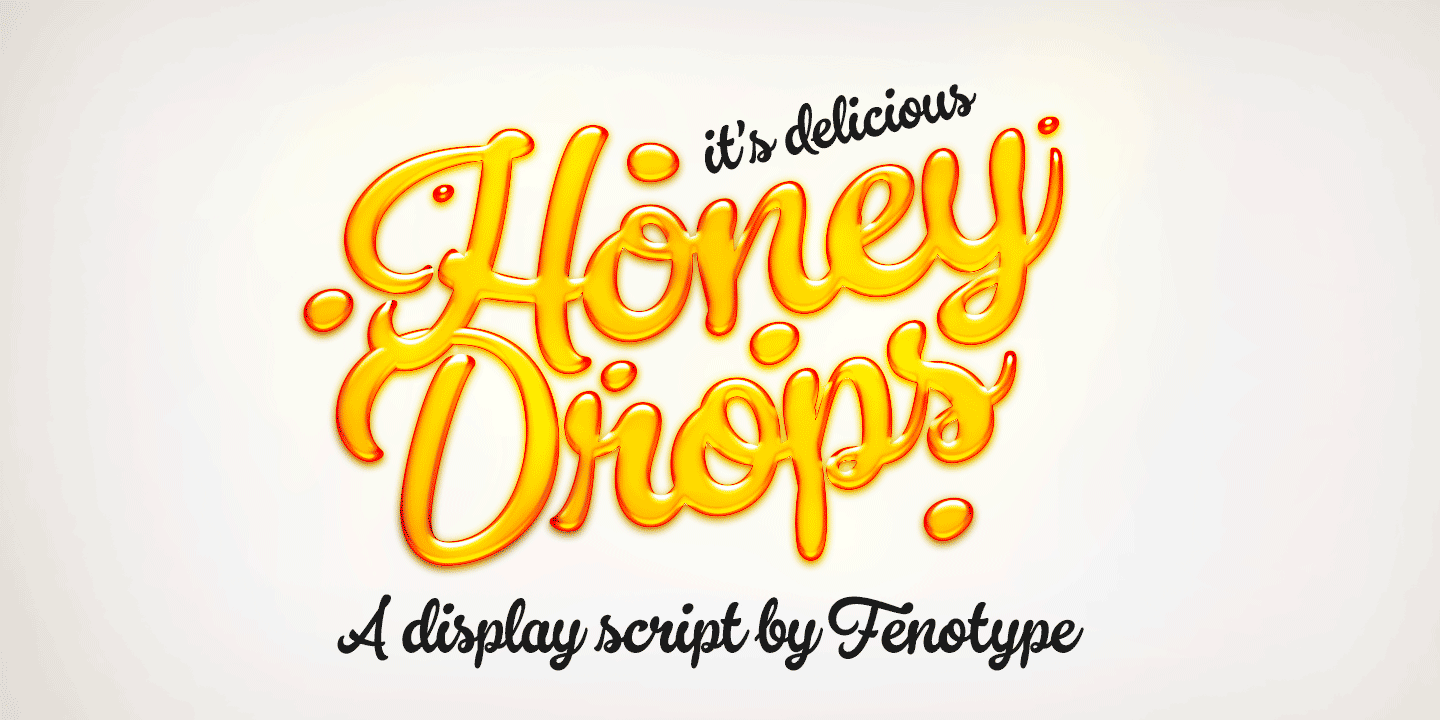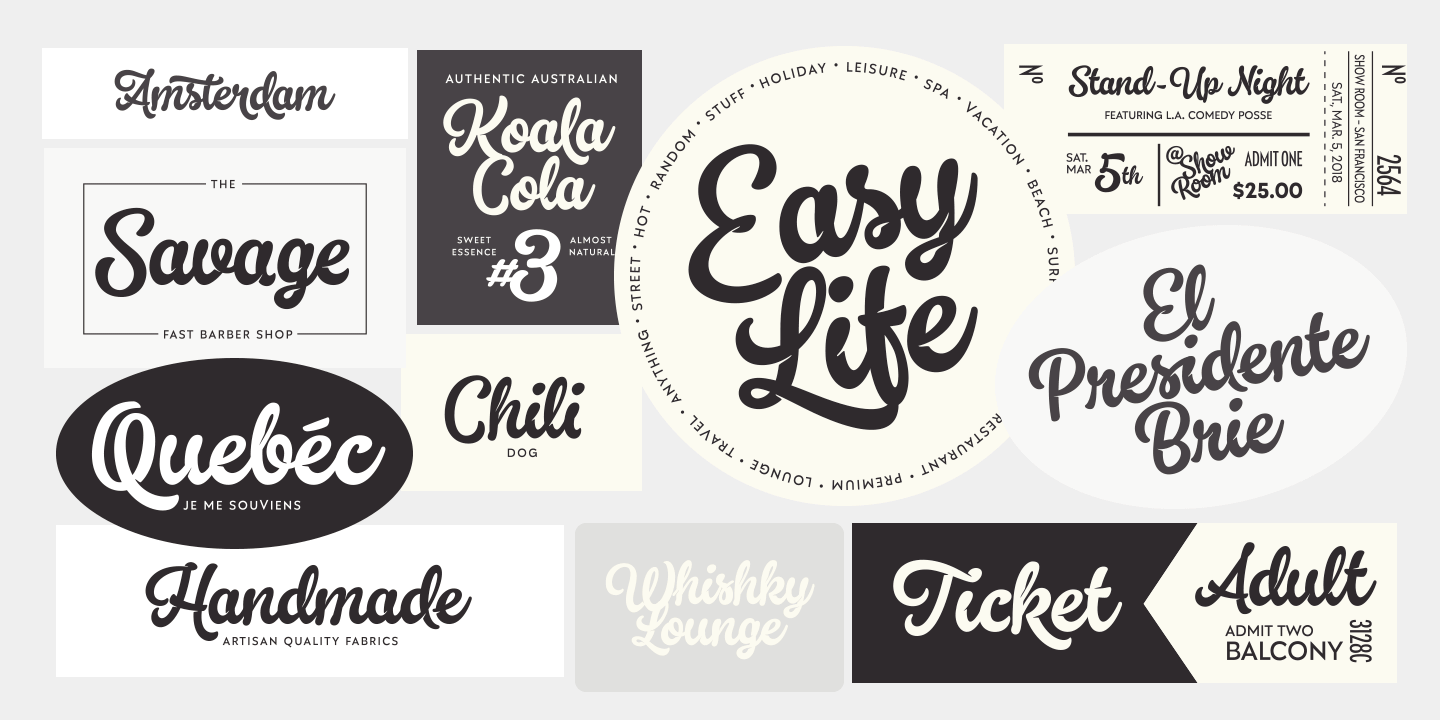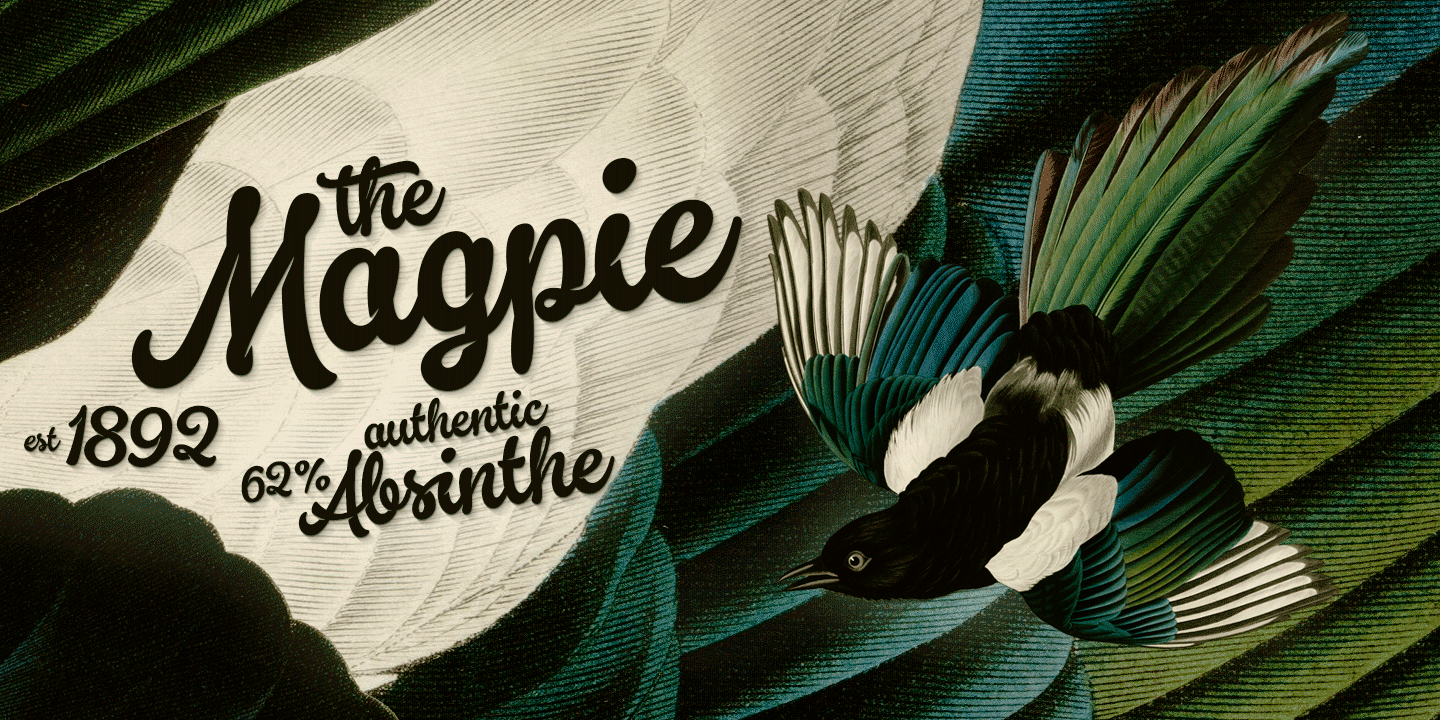
About Honey Drops
Honey Drops is a bold brush family with Script, casual Caps and Extras. Honey Drops is divided into three styles -regular, distressed and one with stylised cuts that strengthens the brush stroke. Honey Drops is packed with several OpenType features:…